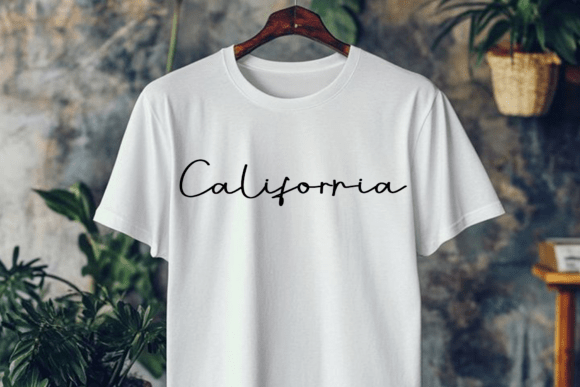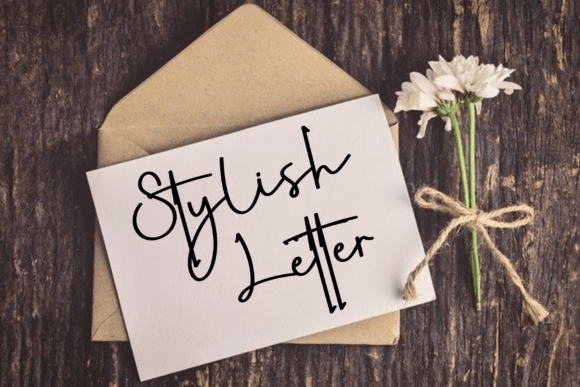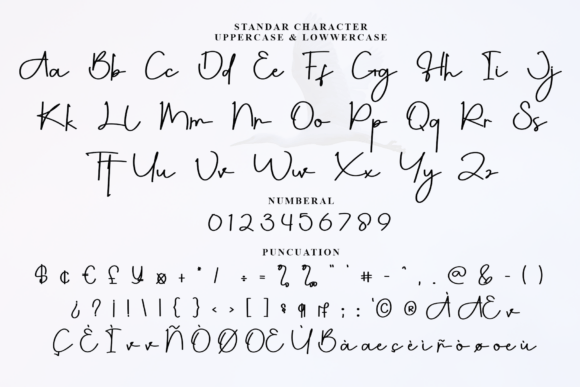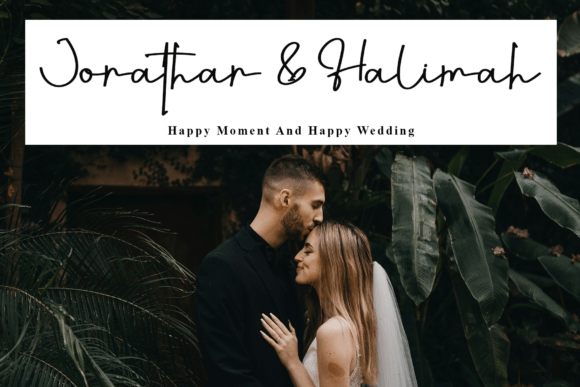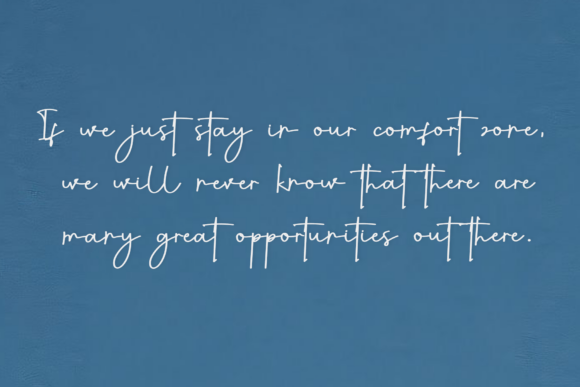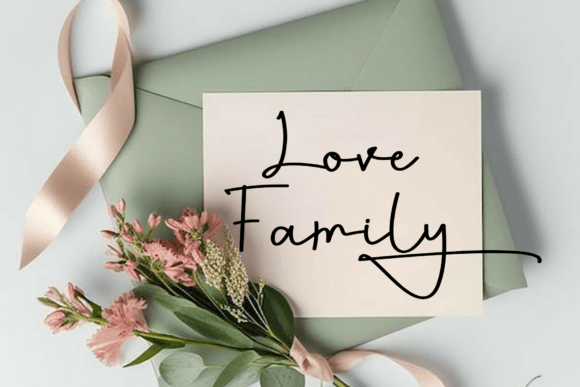
Introduction to Meylin Font
As a designer, there’s nothing quite like the thrill of bringing a creative project to life. The blank page stares back at you, begging for inspiration. And then, it hits you – a spark of an idea that sets your imagination ablaze. For those of us who live for this moment, the right font can be the key to unlocking our creative potential. That’s where the Meylin Font comes in – a lovely and timeless handwritten font that’s sure to capture your heart.
Whether you’re crafting a stunning logo, branding a new business, or simply adding a touch of elegance to a quote, Meylin Font is the perfect design resource. Its unique and beautiful touch brings every letter to life, making your design truly shine. And the best part? This high-quality font is available for free download, complete with a transparent background, making it a valuable addition to any designer’s toolkit.
Key Features of Meylin Font
- High-quality design resource with a transparent background, ideal for creative projects that require a clean and minimalist look.
- Unique characteristics include elegant lines, subtle curves, and a neutral color palette, making it a versatile choice for a wide range of design applications.
- Perfect for use in digital design, including web design, mobile app design, and graphic design, as well as print design and publishing.
- Comes with a comprehensive character set, including uppercase and lowercase letters, numbers, and punctuation marks, for seamless use in various creative projects.
Honest Review: Meylin Font
I recently had the chance to work with Meylin Font for a creative project and was really impressed by its quality. As a designer, I’m always on the lookout for high-quality design resources to enhance my work, and Meylin Font definitely delivers.
- What works well: Meylin Font’s high level of detail and sophistication make it perfect for a wide range of design projects. Its sleek and modern design gives it a professional touch that’s hard to beat.
- What works well: The transparent background option in Meylin Font is also a huge plus, allowing me to easily integrate it into my designs without any hassle.
However, I do have to note that Meylin Font may not be suitable for every project. Its modern design can be a bit overwhelming for simpler projects, and it may not be the best choice for projects that require a more minimalist approach.
Overall, I’m really impressed with Meylin Font and would highly recommend it to anyone looking for a high-quality design resource. Its free download option and transparent background make it a valuable asset for any designer’s toolkit.
Tips for Getting the Most Out of Meylin Font
To get the most out of Meylin Font, use it in combination with other design elements, such as images and shapes, to create a unique visual effect. You can also experiment with different font sizes and styles to add emphasis and create visual interest.
Meylin Font is commonly used in a variety of design applications, including logos, brochures, and presentations. It is also used in digital design, such as websites and social media graphics, due to its high-quality and transparent background.